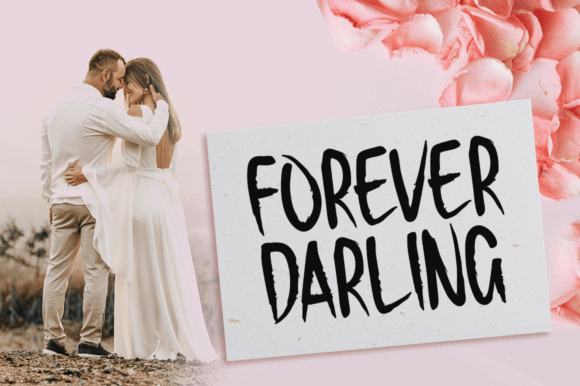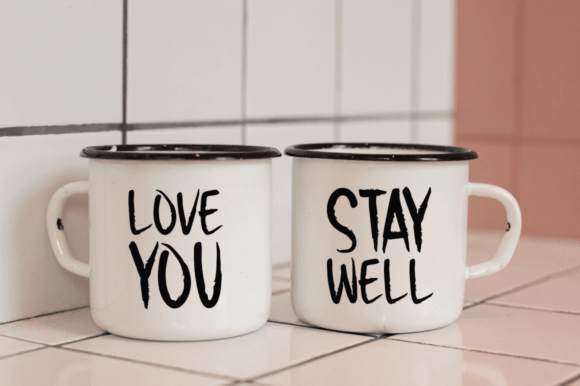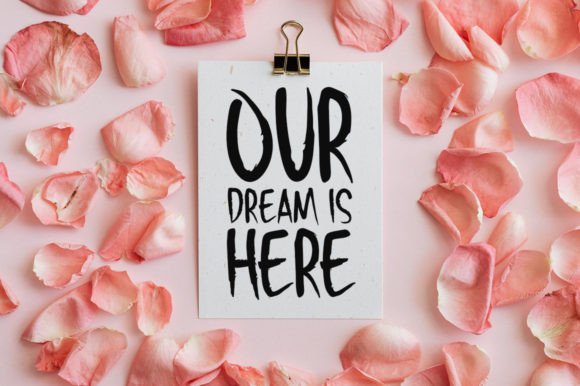
Introduction to Lovesome Font
Lovesome is a cool and fun, brush display font.
Lovesome is perfectly suited for stationery, logos, t-shirts, paper, print design, website headers, photo frames, flyers, music covers, posters, image sliders, and much more .
Key Features of Lovesome Font